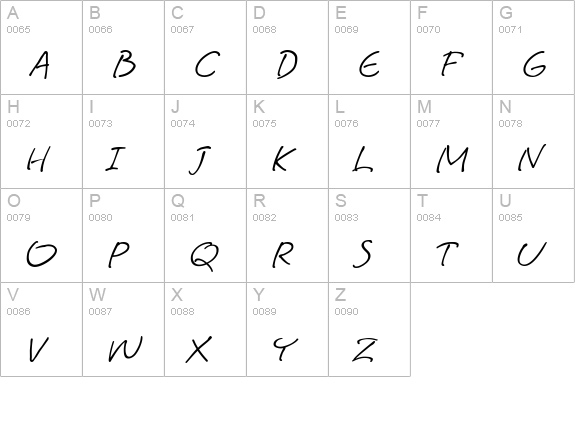
GrapeNutsROB Font Details
GrapeNutsROB font is a playful and unique typeface that exudes a sense of fun and creativity. With its rounded edges and whimsical design, this font is perfect for adding a touch of charm to any project. Whether you're designing a greeting card, creating a logo, or crafting a poster, GrapeNutsROB will bring a delightful flair to your work. The best part? GrapeNutsROB font is completely free to download at FontsMarket.com. You can easily access this font and start using it in your designs without any cost. Don't miss out on the opportunity to add a touch of whimsy to your projects with GrapeNutsROB font - download it today and let your creativity shine!